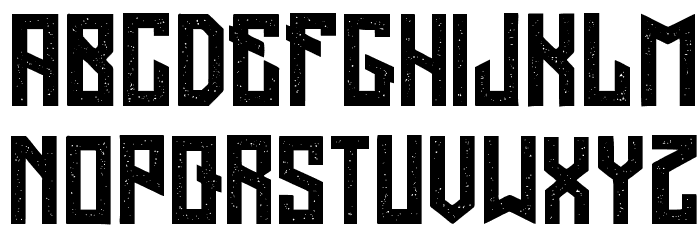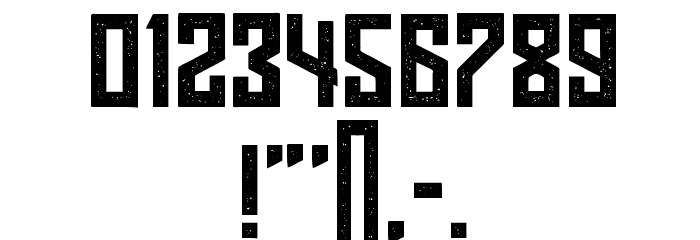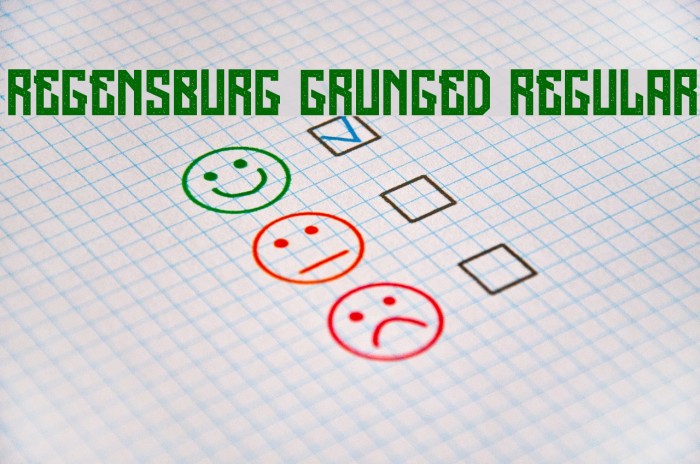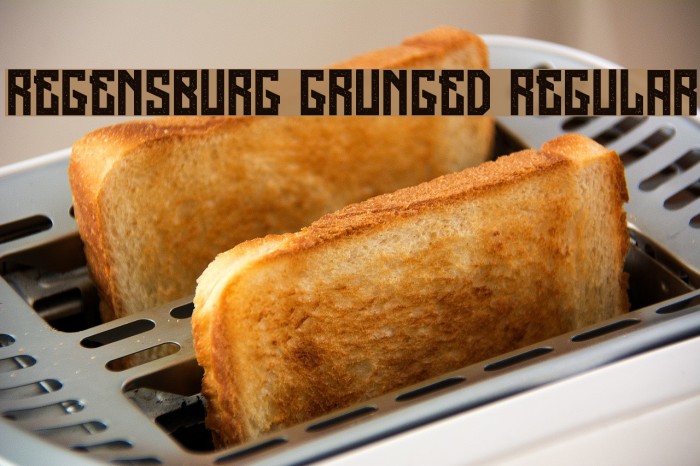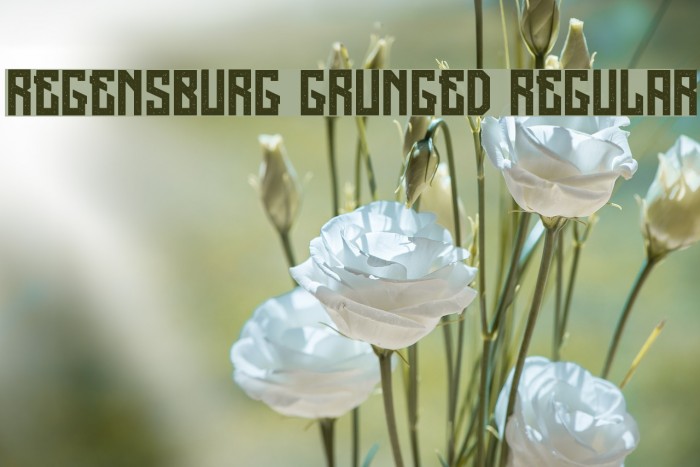
Regensburg Grunged Regular Font
This font features a bold, geometric design with a distressed, grunge texture that gives it a rugged and edgy appearance. The characters are constructed with straight lines and sharp angles, creating a modern and industrial feel. The texture adds a unique, worn look, making it stand out for creative and unconventional projects. The uppercase and lowercase letters maintain a consistent style, while the numerals and special characters complement the overall design. This font is ideal for projects that require a bold statement with a touch of grit.
A bold, geometric font with a grunge texture for an edgy, modern look.
- Font: Regensburg Grunged Regular
- Proposed Projects: Posters, album covers, branding for edgy products, urban-themed designs, and apparel graphics.
- Overall Style: Modern, Grunge